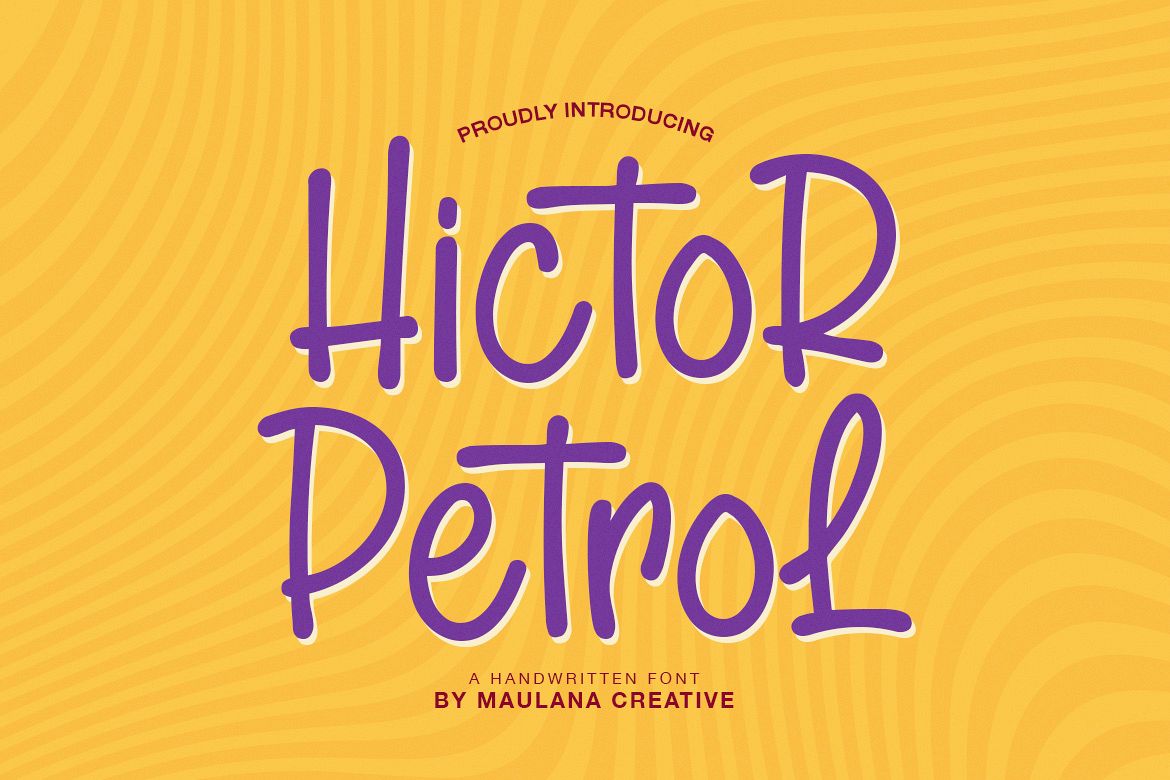
**Hictor Petrol** is a handwritten sans serif font. This font is very simple and fun to use! **Hictor Petrol** is perfect for create a quotes, logo, badge, insignia, packaging, headline, poster, t-shirt/apparel, greeting card, wedding invitation and more. This **Hictor Petrol** font include multilingual language. This font include: – Hictor Petrol Font Version – Web Font Include – OTF and TTF Version – Language Support (English, Spanish, Portguese, German, Italian, French, Polish) I really hope you enjoying using **Hictor Petrol** font. Many Thanks, MaulanaCreative